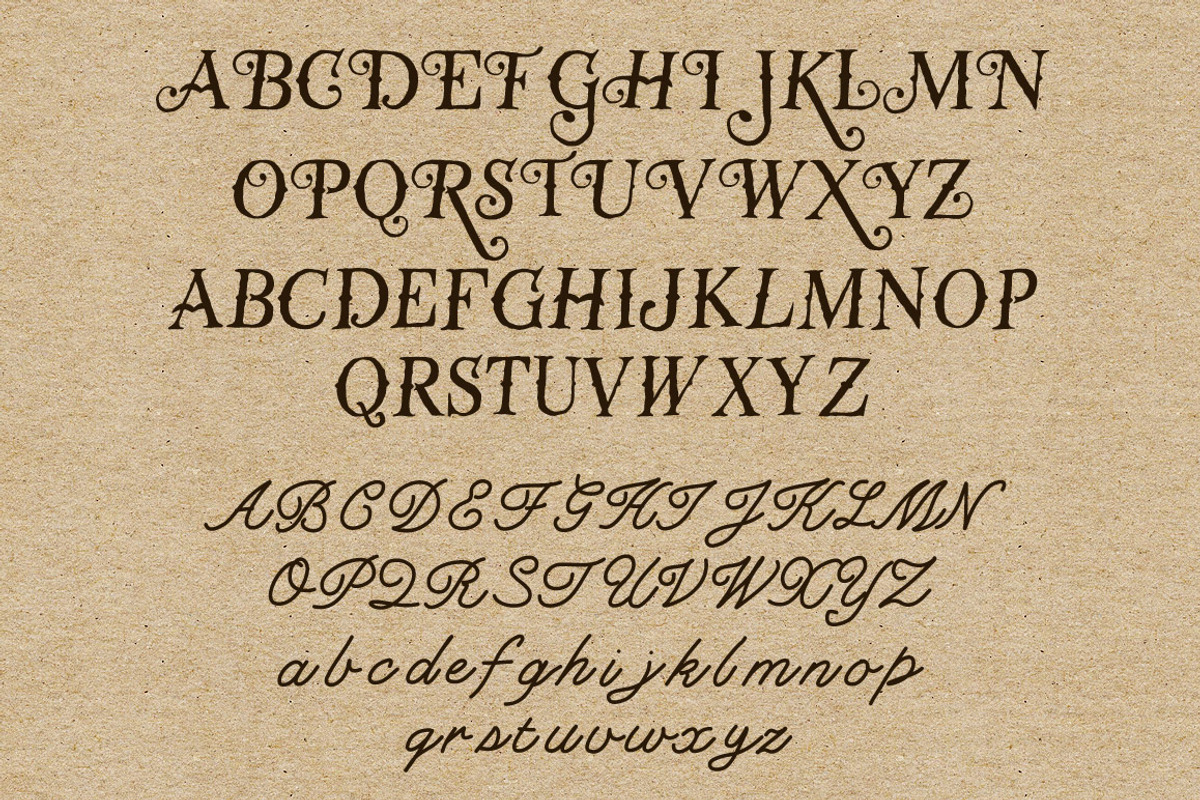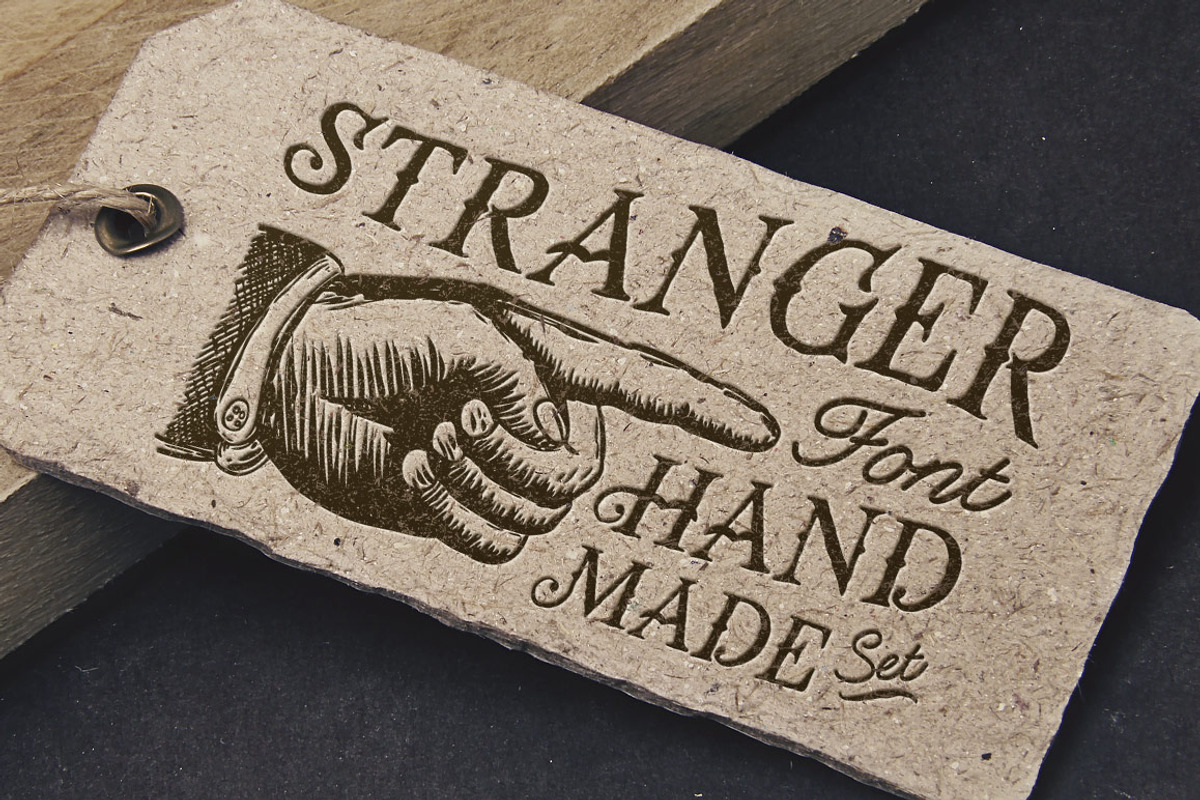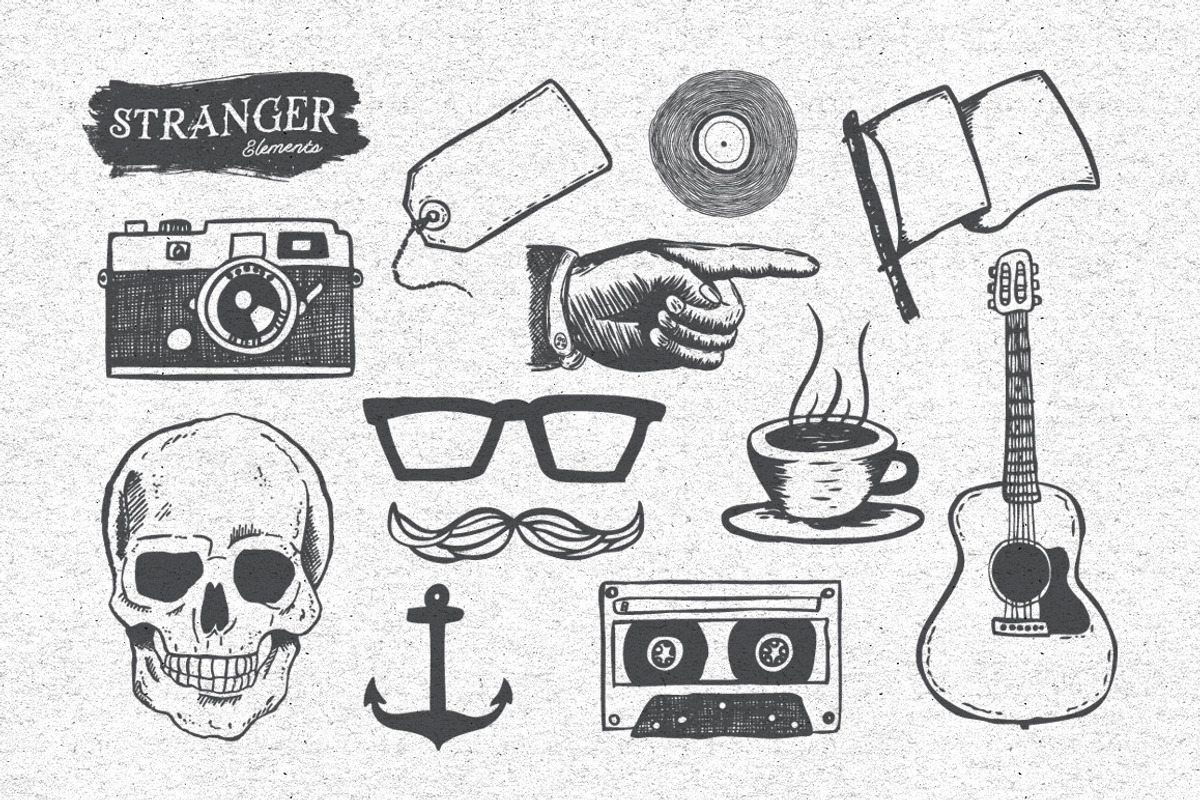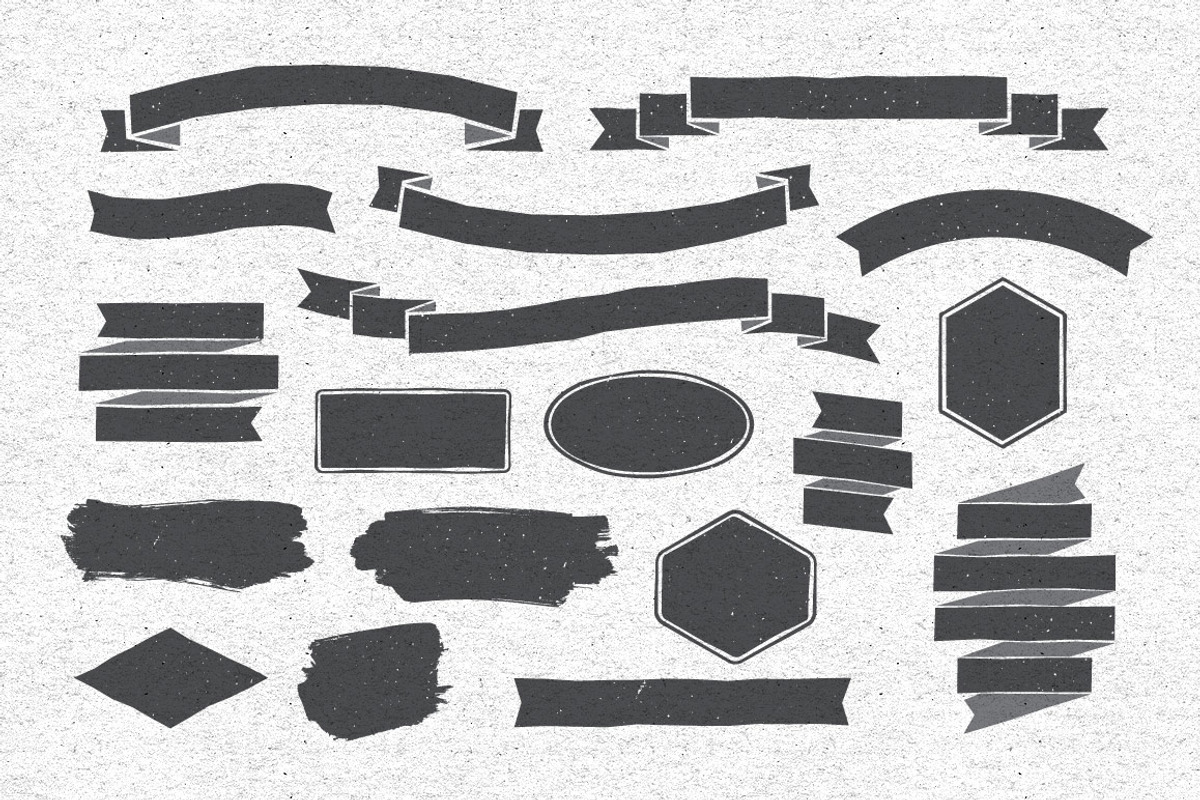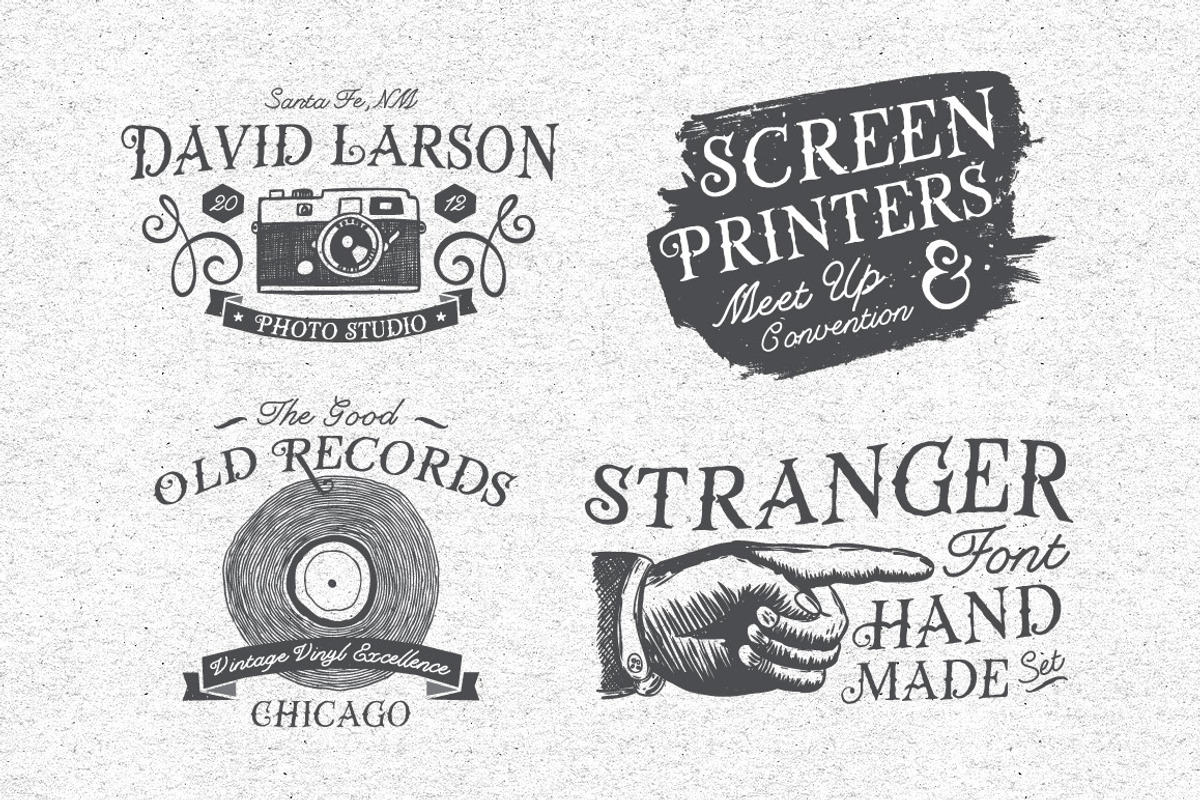
Stranger Font Pack & Vector Graphics
Stranger Font Pack & Vector Graphics by Nathan Brown is a font selected for branding, posters, packaging, typography.
- This set contains everything you need to complete a really nice hand made design.
- It contains two sets of uppercase letters, numbers and various symbols and punctuation.
- This is a hand drawn script font that contains both upper and lowercase letters.
- This set contains everything you need to complete a really nice hand made design.
- It contains two sets of uppercase letters, numbers and various symbols and punctuation.
- This is a hand drawn script font that contains both upper and lowercase letters.
- It contains two sets of uppercase letters, numbers and various symbols and punctuation.
- This is a hand drawn script font that contains both upper and lowercase letters.
Why Stranger Font Pack & Vector Graphics is worth a look
Stranger Font Pack & Vector Graphics by Nathan Brown fits naturally into Branding, posters, packaging, typography.